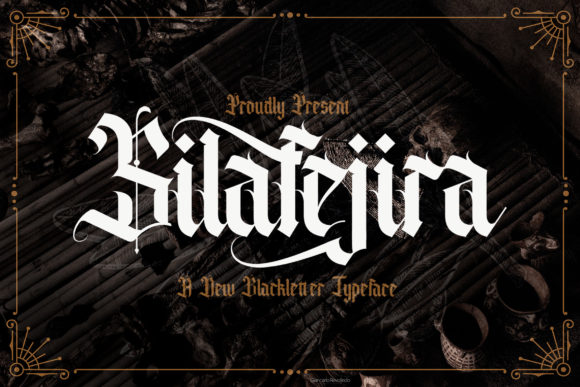
Unleash the Power of Silafejira: The Blackletter Font That Commands Attention
In a world saturated with visual noise, your designs deserve a font that cuts through the clutter and captivates the imagination. Say hello to Silafejira, the ultimate blackletter font crafted by the visionary artists at StringLabs. This masterpiece of digital artistry will transform your creations into captivating expressions of boldness and authenticity.
Immerse yourself in the world of Silafejira and let your imagination soar. With its intricate, hand-drawn strokes and undeniable charm, this font is a testament to the enduring power of tradition. Inspired by ancient scripts and imbued with a modern sensibility, Silafejira breathes life into your designs, adding a touch of mystery and intrigue that will leave your audience spellbound.
Designed with versatility in mind, Silafejira effortlessly adapts to a myriad of creative endeavors. Whether you're a graphic designer weaving your magic into logos, posters, and branding materials, or a web designer crafting immersive digital experiences, this font is your steadfast companion. Its meticulously rendered glyphs and comprehensive character set ensure that your designs will shine on any platform, from the smallest screens to expansive billboards.
But Silafejira is more than just a visually stunning font; it's an experience that ignites the senses and stirs the emotions. Its bold, confident strokes command attention, while its intricate details reward closer examination. Use it to craft headlines that resonate, body copy that captivates, or logos that leave a lasting impression.